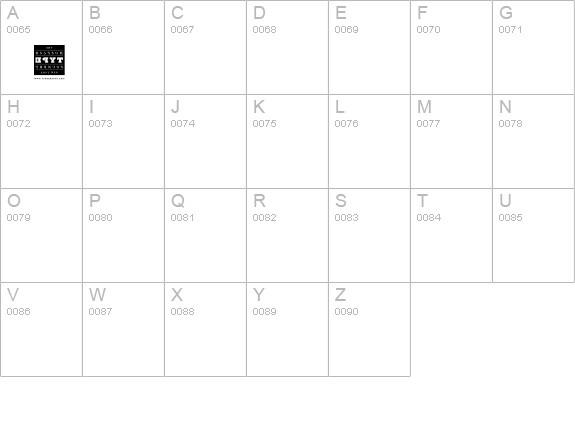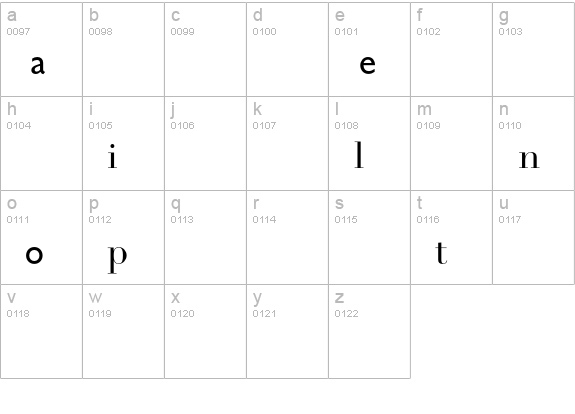
Appellation-HTF Font Details
Appellation-HTF is a stunning and versatile font that combines elegance with modernity. Its sleek lines and refined curves make it perfect for a wide range of design projects, from branding to editorial layouts. The font exudes sophistication and sophistication, making it an ideal choice for those looking to make a lasting impression with their typography. One of the best things about Appellation-HTF is that it is completely free to download. You can easily access this beautiful font at FontsMarket.com, where you can download it and start using it in your projects right away. Whether you're a professional designer or a hobbyist looking to elevate your creations, Appellation-HTF is sure to add a touch of class and style to your work. Download it today and see the difference it can make in your designs!